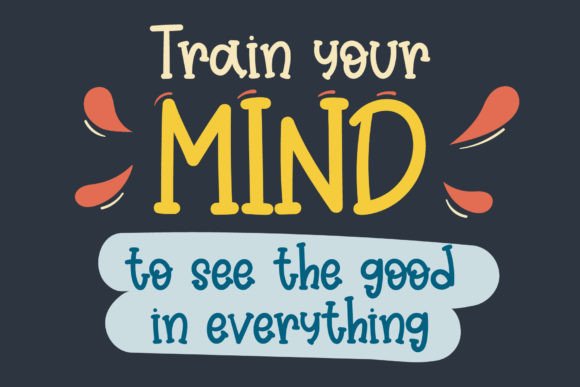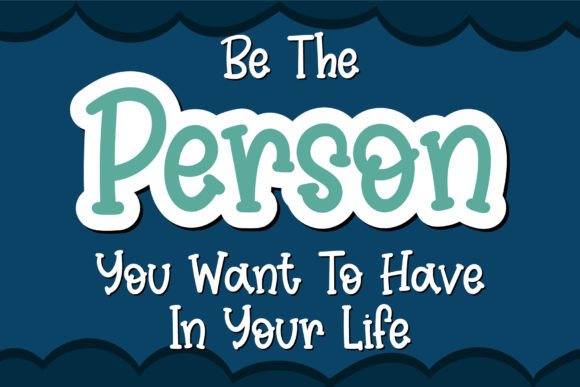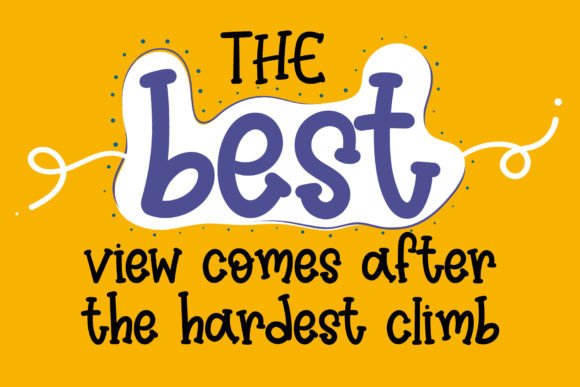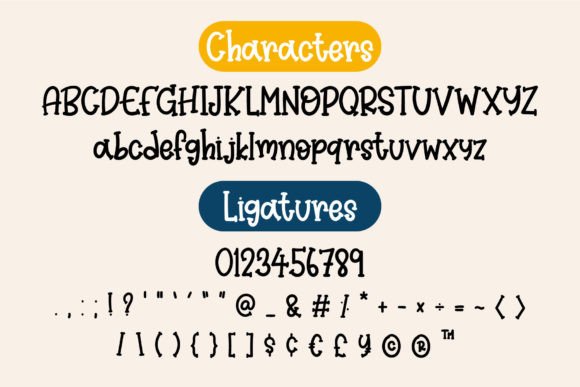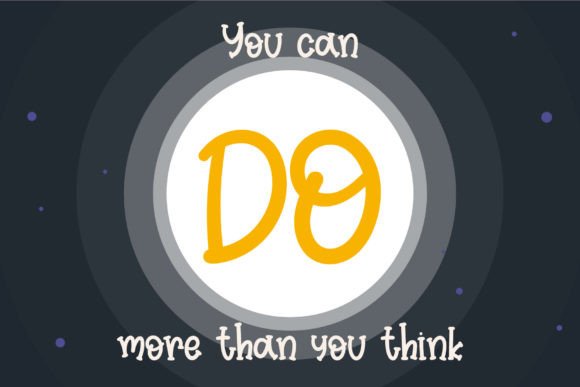
Introducing Company Font: The Ultimate Handwritten Font for Creative Designs
Are you a designer or crafter looking for a font that can elevate your projects to the next level? Look no further than Company Font, a cute and friendly handwritten font that’s perfect for a wide range of design applications. With its versatility and charm, Company Font is sure to become your go-to font for all your creative endeavors.
What Makes Company Font So Special?
Company Font is a unique and carefully crafted handwritten font that’s designed to add a personal touch to your designs. Its cute and friendly vibe makes it perfect for projects that require a warm and approachable feel. Whether you’re working on branding, headings, wedding designs, invitations, signatures, logos, labels, or any other type of project, Company Font is sure to impress.
Endless Design Possibilities with Company Font
The best part about Company Font is its versatility. This font can be used for a wide range of design projects, from:
- Branding: Create a consistent brand identity with Company Font, perfect for logos, business cards, and letterheads.
- Wedding Designs: Add a touch of elegance and romance to your wedding invitations, programs, and decorations.
- Invitations: Create beautiful and unique invitations for parties, events, and special occasions.
- Signatures: Add a personal touch to your email signatures, documents, and contracts.
- Logos: Create a memorable and eye-catching logo for your business or brand.
- Labels: Design custom labels for products, gifts, and more.
The only limit to what you can create with Company Font is your imagination!
Why Choose Company Font?
There are many fonts available, but Company Font stands out from the rest due to its:
- Unique and Handwritten Style: Company Font has a distinctive and charming handwritten style that’s sure to capture attention.
- Versatility: This font can be used for a wide range of design projects, making it a valuable addition to your font library.
- Ease of Use: Company Font is easy to read and works well in both digital and print formats.
Tips for Using Company Font Effectively
To get the most out of Company Font, here are some tips to keep in mind:
- Use it as a Headline Font: Company Font works well as a headline font, adding a touch of personality to your titles and headings.
- Pair it with Other Fonts: Experiment with pairing Company Font with other fonts to create a unique and visually appealing design.
- Adjust the Size and Color: Play around with different sizes and colors to find the perfect combination for your design.